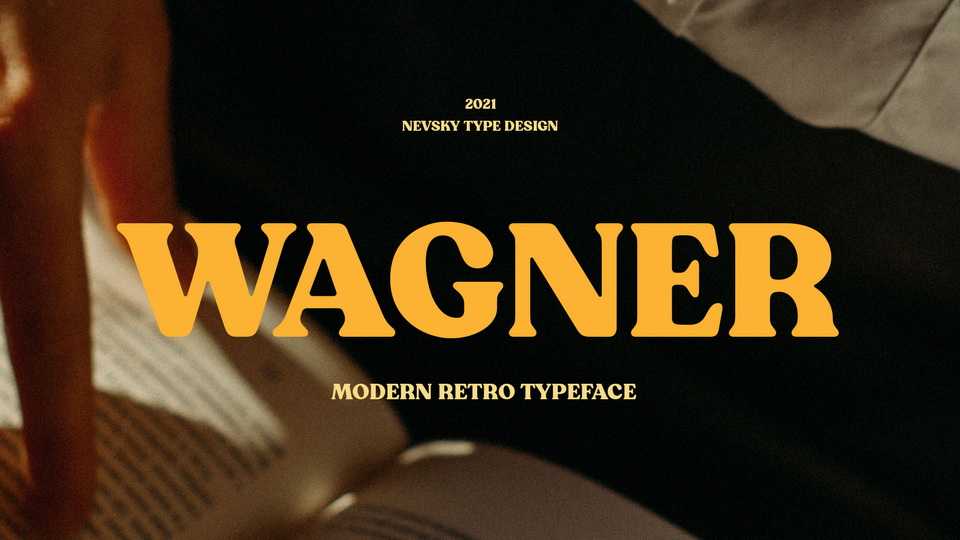
Download NT Wagner font, a modern soft retro serif typeface. NT Wagner font needs to be in your collection and is perfect for your next design project.
Designer: Artem Nevsky